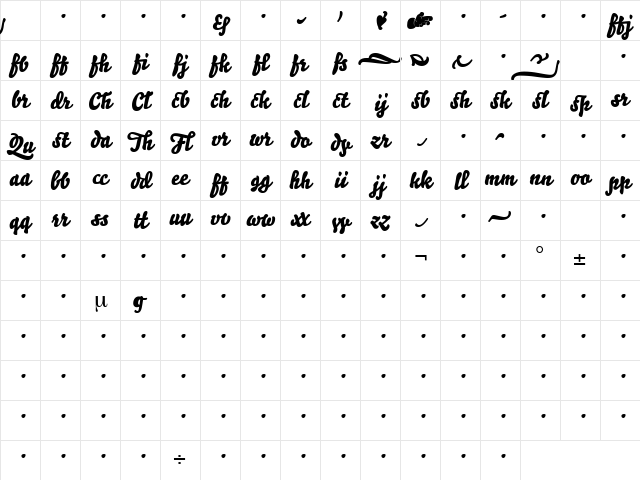
Bello Script Ligatures Regular Free Font
Bello Script Ligatures Regular
Design Context for Bello Script Ligatures
Bello Script Ligatures flows with the natural rhythm of handwritten lettering, making it ideal for designs that call for warmth and personal expression.
Font Pairing: Combine Bello Script Ligatures with a simple geometric sans for maximum contrast - the tension between flowing curves and clean structure is a classic typographic pairing.
Pro Tip: Use Bello Script Ligatures for short runs of text - names, titles, or taglines. Extended body copy in script faces tires the eye quickly.